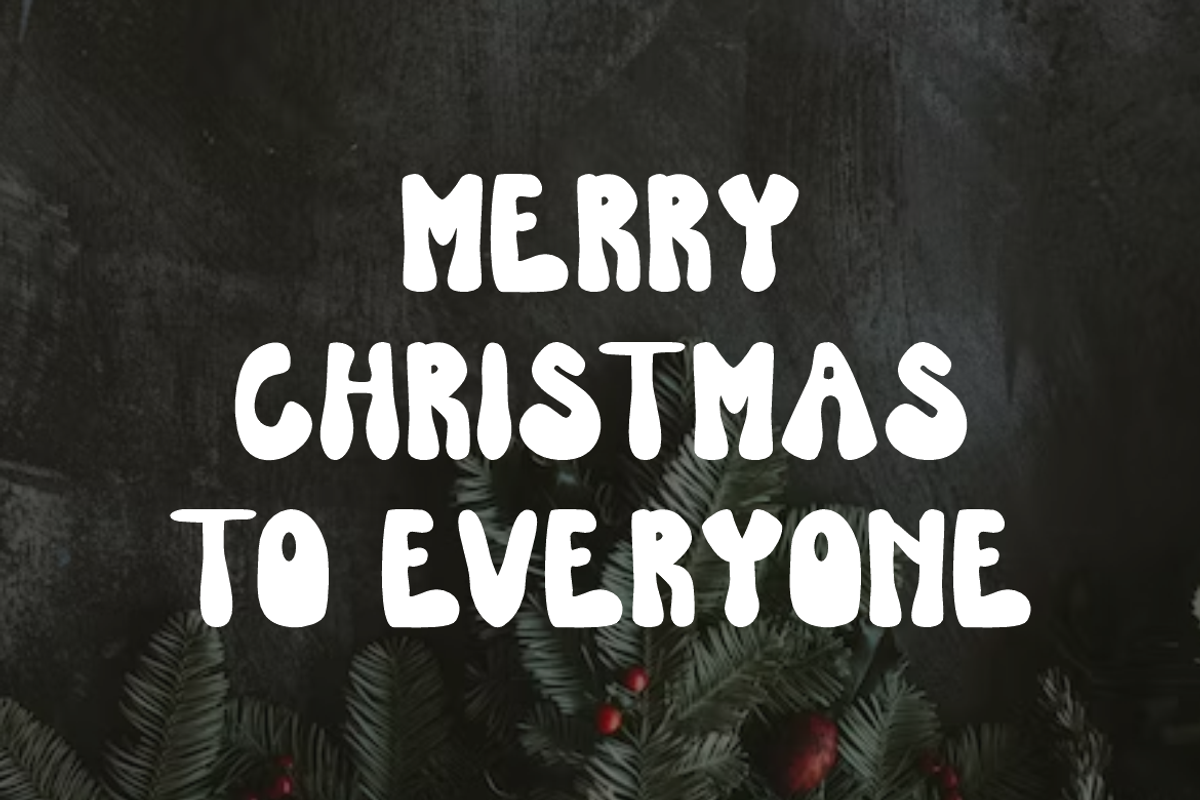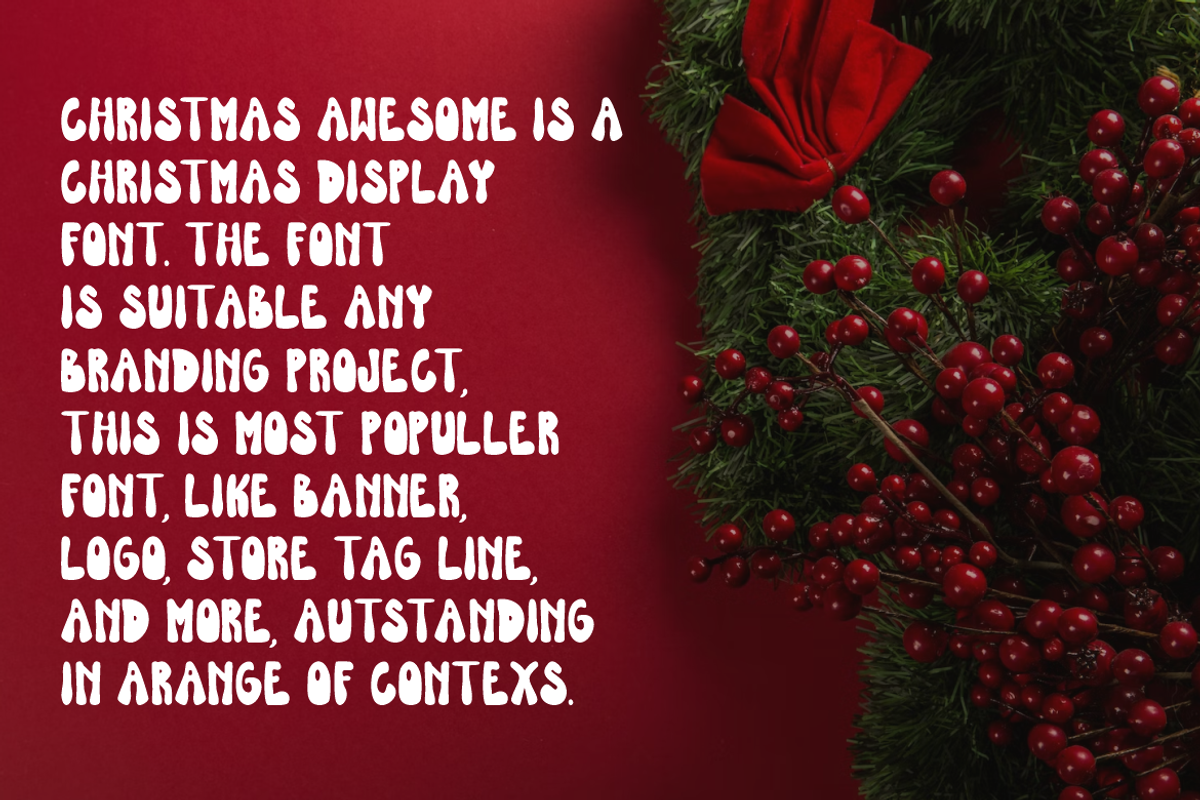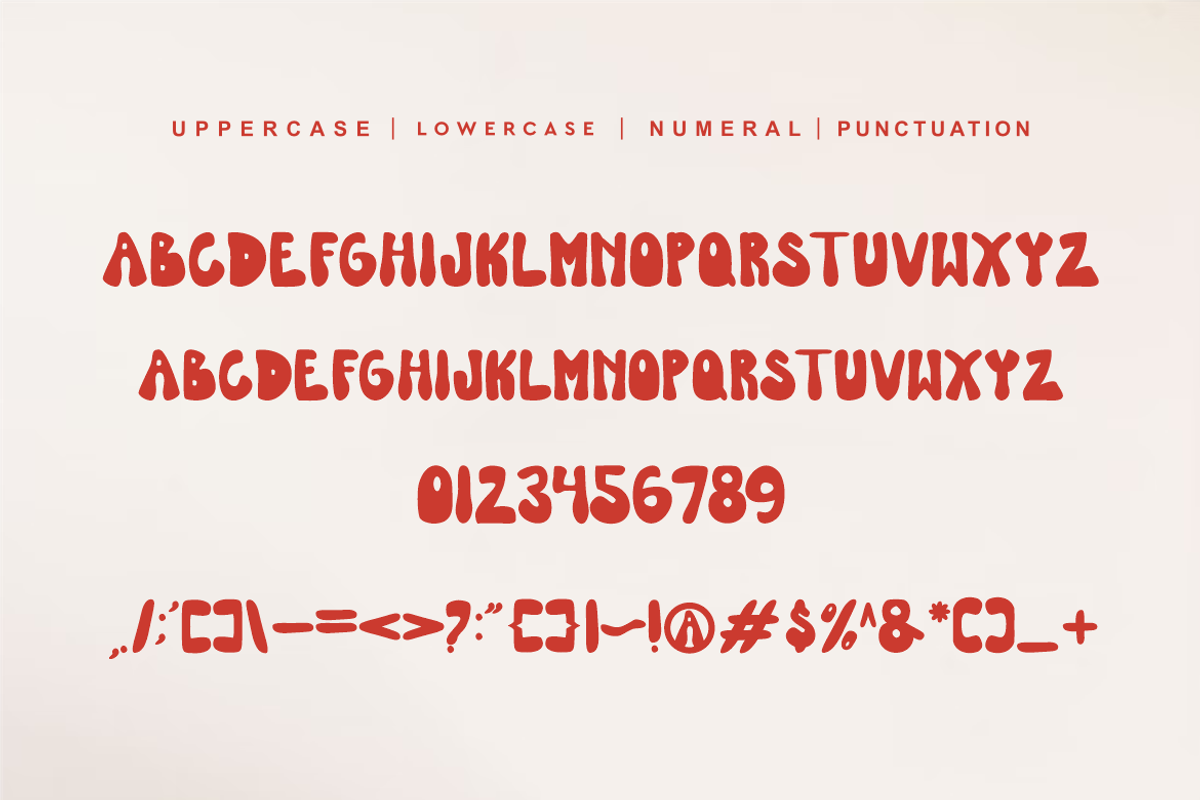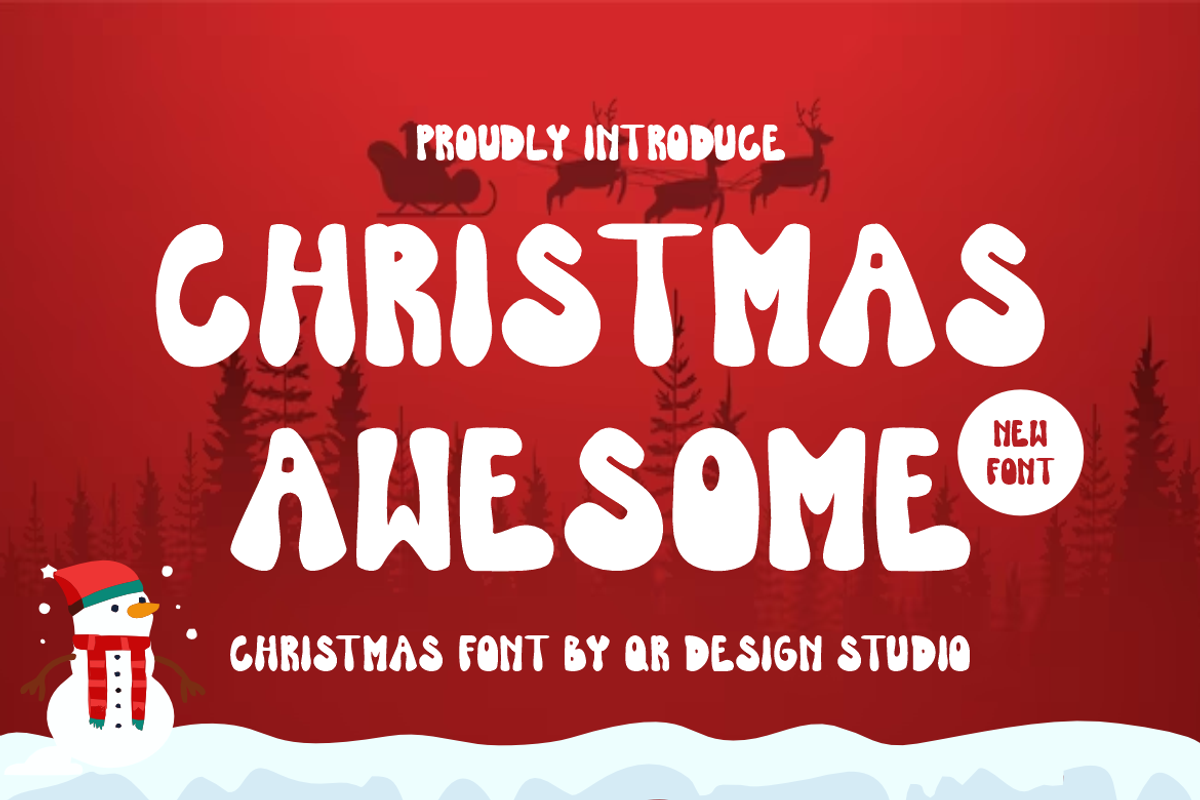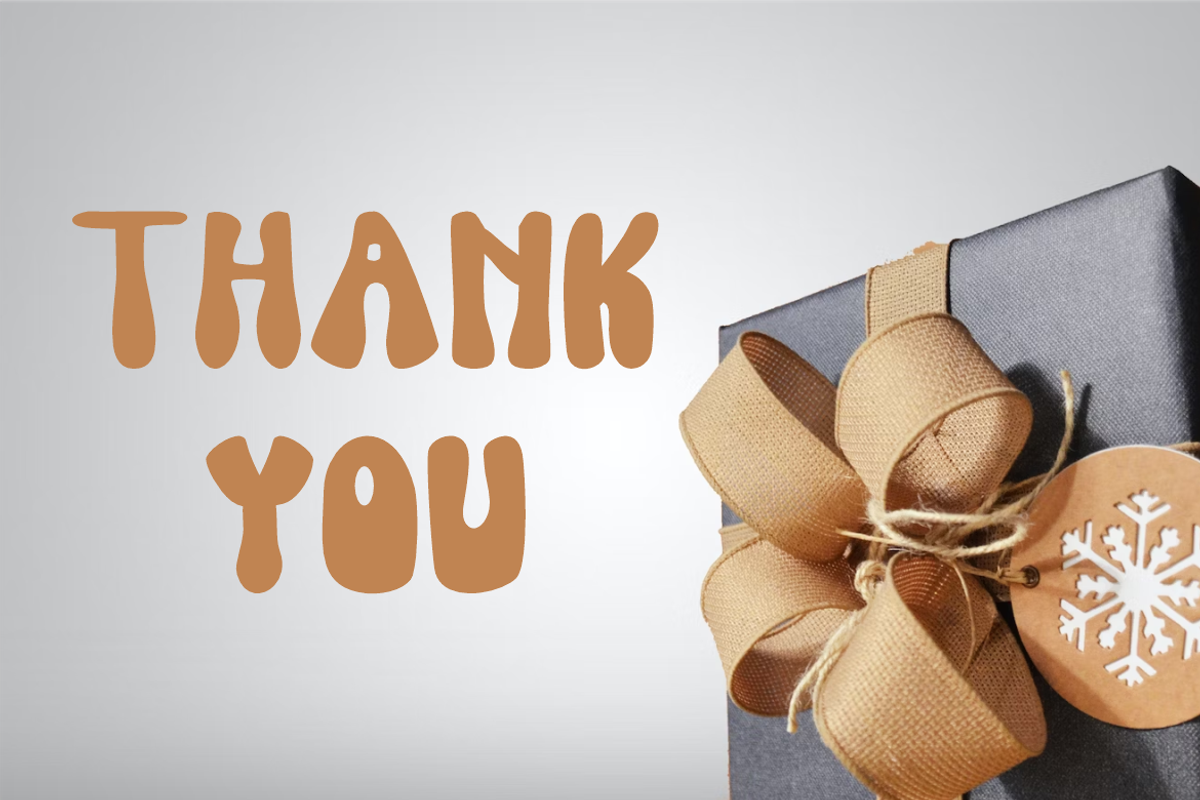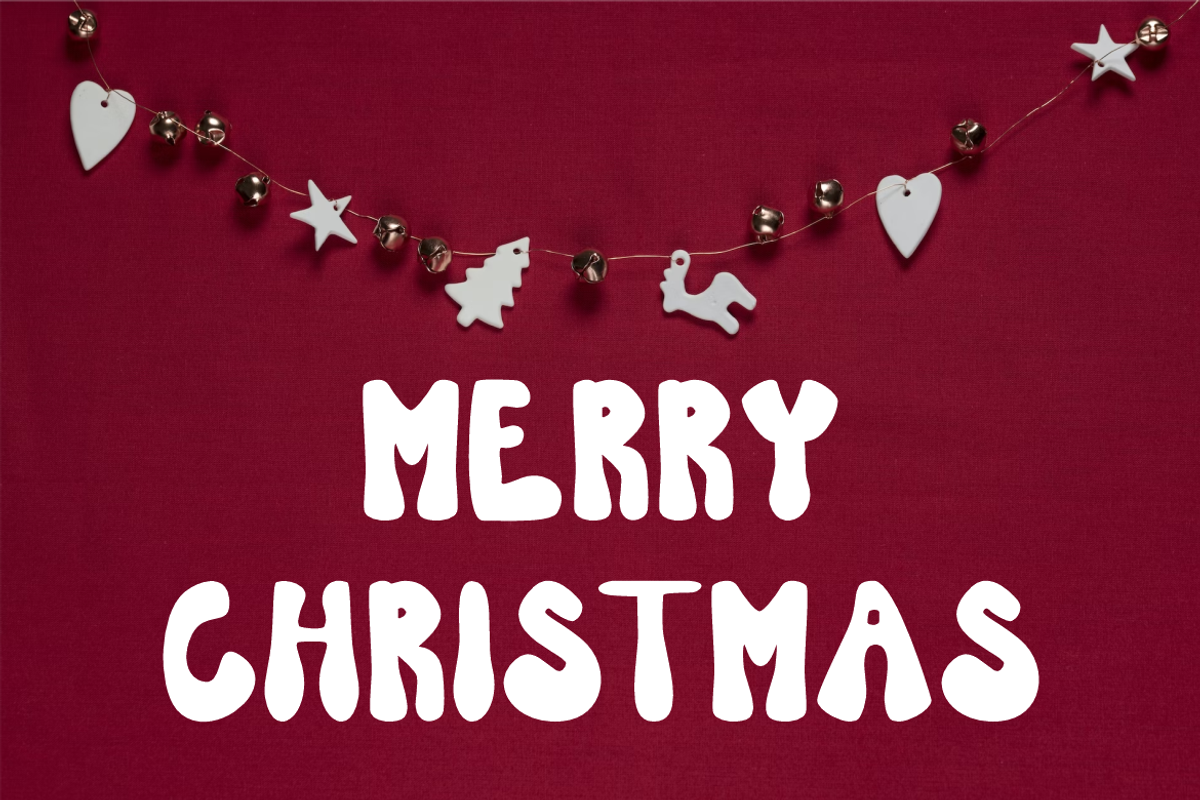
Christmas Awesome
Christmas Awesome Font is a bold and authentic display font. The font is suitable for any branding project like logo, poster, winter, food, and many more. Outstanding in a wide range of contexts.